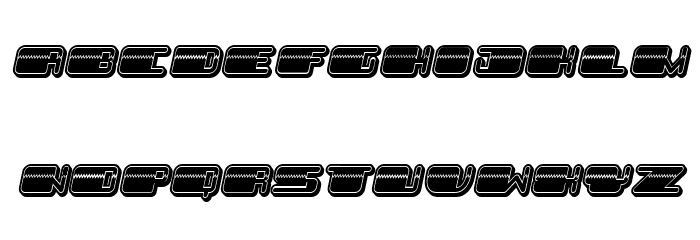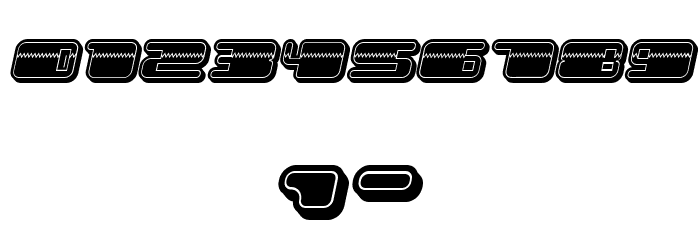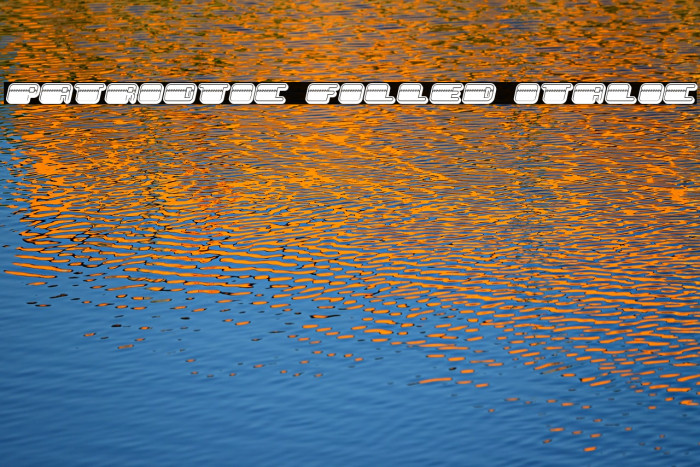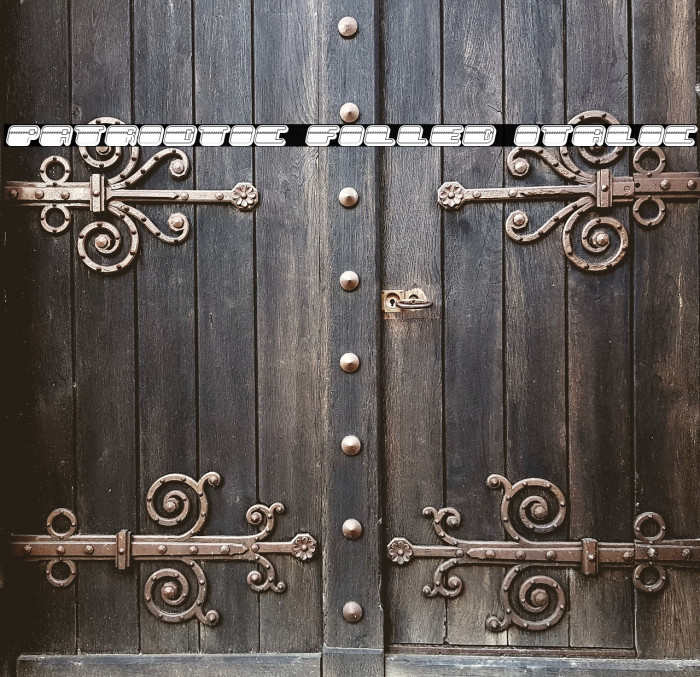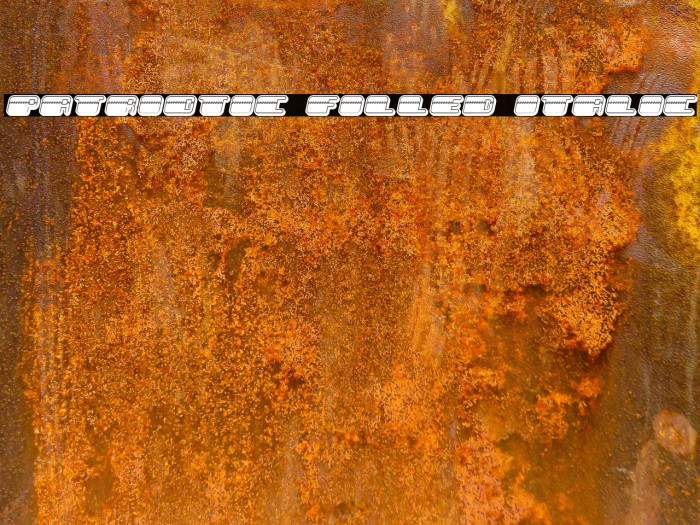
Patriotic Filled Italic Font
This font features a bold, filled design with a distinct italic slant, giving it a dynamic and energetic appearance. The characters are outlined with a thick border, creating a striking contrast between the filled interior and the outer edges. The font has a modern, decorative style that incorporates elements of both retro and futuristic aesthetics. Each letter and number is uniquely crafted with a consistent pattern, making it suitable for eye-catching designs. The special characters maintain the same bold and filled style, ensuring uniformity across all glyphs. This font is ideal for projects that require a strong visual impact, such as posters, headlines, and branding materials.
A bold, filled italic font with a modern, decorative style and thick outlines.
- Proposed Projects: Ideal for posters, headlines, branding, and any design needing a strong visual impact.
- Overall Style: Modern, Decorative